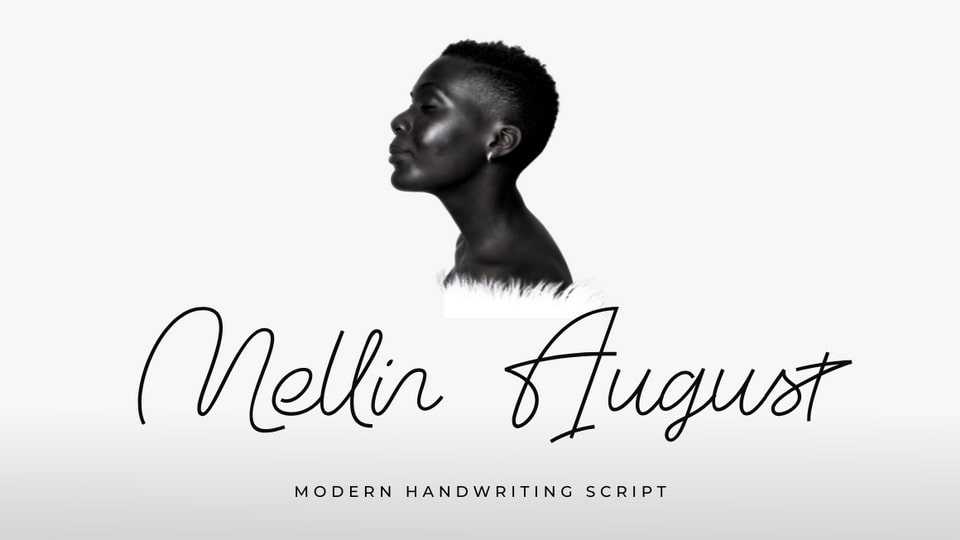
Download Mellin August font, a delicate handwriting typeface script with sweetness and smooth curves. Mellin August font brings unique curves and is perfect for adding a human touch to your design project
Designer: Ridho Pratama Putra